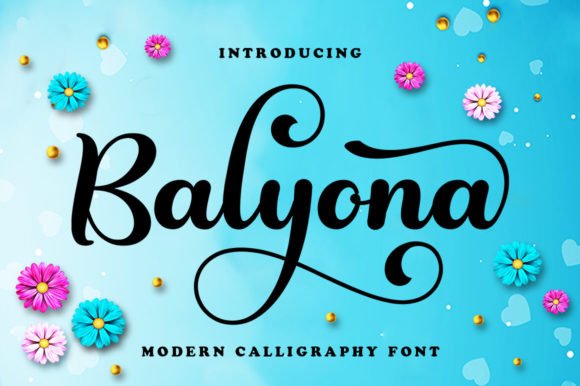
Adding a Touch of Elegance to Your Designs
Have you ever been in the midst of a design project, struggling to find the perfect font to capture the essence of your vision? You browse through countless options, but nothing seems to quite fit the bill. That’s when the magic happens – you stumble upon a font that changes everything. For designers, the perfect font can be the difference between a good design and a great one.
Enter the Balyona Font, a stunning light handwritten font that exudes luxury and sophistication. With its unique feel and stunning impact, this font is sure to add a touch of elegance to any design project. Whether you’re creating a logo, brochure, or social media graphic, the Balyona Font is the perfect choice to elevate your design to the next level.
Balyona Font Key Features
- Font Style: Script, Handwritten
- Unique Characteristics: Elegant, luxurious, and modern script font with a wide range of applications, suitable for wedding invitations, logos, and other creative projects.
- Language Support: Multilingual support for Latin-based languages
Balyona Font Review
I recently had the chance to work with the Balyona Font, and I must say it’s an interesting addition to the world of typography. ✨ One of the things that stands out about this font is its unique blend of modern and traditional elements. The designer has done a great job of creating a font that feels both contemporary and timeless.
The Balyona Font has a number of features that make it well-suited for a variety of design projects. ✨ Here are a few of its strengths:
- Highly legible: The Balyona Font is designed to be easy to read, even at small font sizes.
- Unique style: The font’s blend of modern and traditional elements gives it a distinctive look that can help designs stand out.
- Wide range of weights: The Balyona Font is available in a range of weights, from light to bold, giving designers a lot of flexibility.
However, there are also some limitations to the Balyona Font that designers should be aware of. ⚠️ Here are a few:
- May not be suitable for very formal designs: The font’s unique style may not be the best fit for very formal or traditional designs.
- Some characters may be difficult to read: While the font is generally highly legible, some characters may be more difficult to read than others.
Overall, I think the Balyona Font is a great addition to any designer’s toolkit. It’s a versatile font that can be used in a wide range of projects, and its unique style can help designs stand out. With a little care and attention, the Balyona Font can be a valuable asset for designers of all levels.
The Balyona font is ideal for creating elegant and sophisticated designs. Use it for:
- Business cards and letterheads.
- High-end marketing materials.
For optimal results, use the Balyona font in combination with a clean and simple design aesthetic.